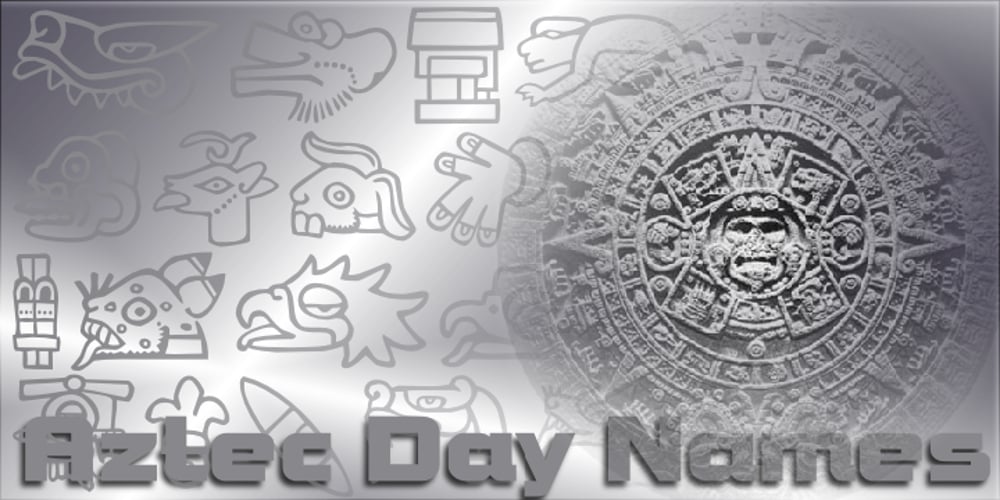
Aztec Day Signs
Aztec Day Signs font
Aztec Day Signs Font Family was designed by Denise Koehler and published by Deniart Systems. Aztec Day Signs contains 1 styles and family package options. Contains the 20 Days of the Mexican Calendar Stone in outline and silhouette mode NOTE: this font comes with an interpretation guide in pdf format.